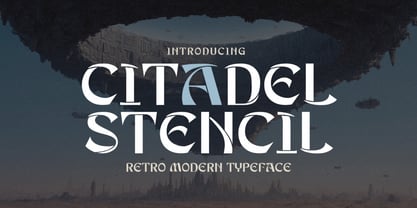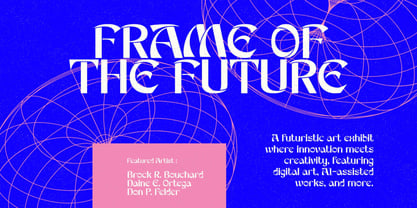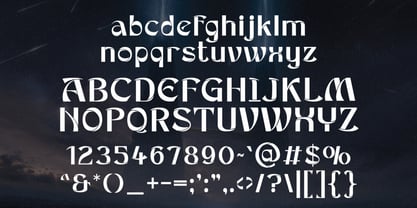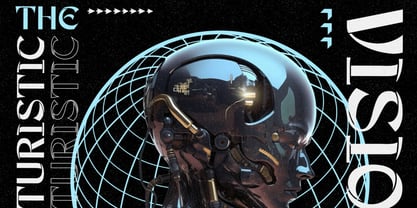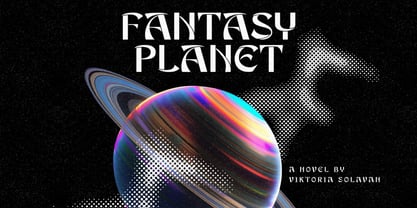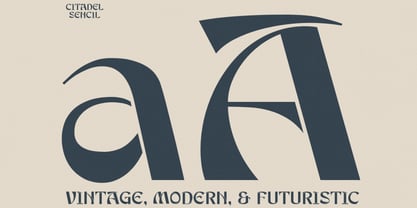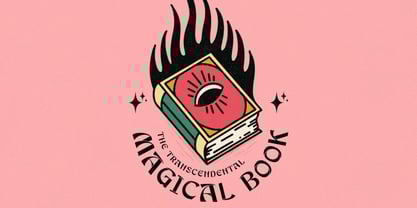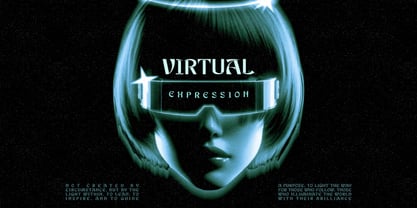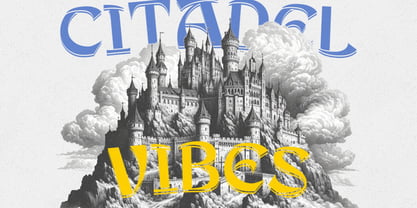
Citadel Stencil
The Citadel Stencil Font Family was designed by Igor Ovsyannykov and published by Hipfonts. Citadel Stencil contains 1 styles. More about this family
Citadel Stencil is where retro charm meets futuristic edge. This bold typeface fuses mid-century modern aesthetics with a cutting-edge stencil design, creating a unique visual identity that demands attention. Whether you're crafting headlines that pop, logos that linger in memory, or branding that feels both timeless and forward-thinking, Citadel Stencil delivers with precision and style.
Each character is thoughtfully sculpted with sharp geometric cuts and industrial flair, evoking the power of classic military stencils, the optimism of the Space Age, and the clean minimalism of modern design. The result? A font that’s unapologetically bold, irresistibly stylish, and remarkably versatile.
Whether you're designing for tomorrow or inspired by the past, Citadel Stencil is your typographic stronghold.